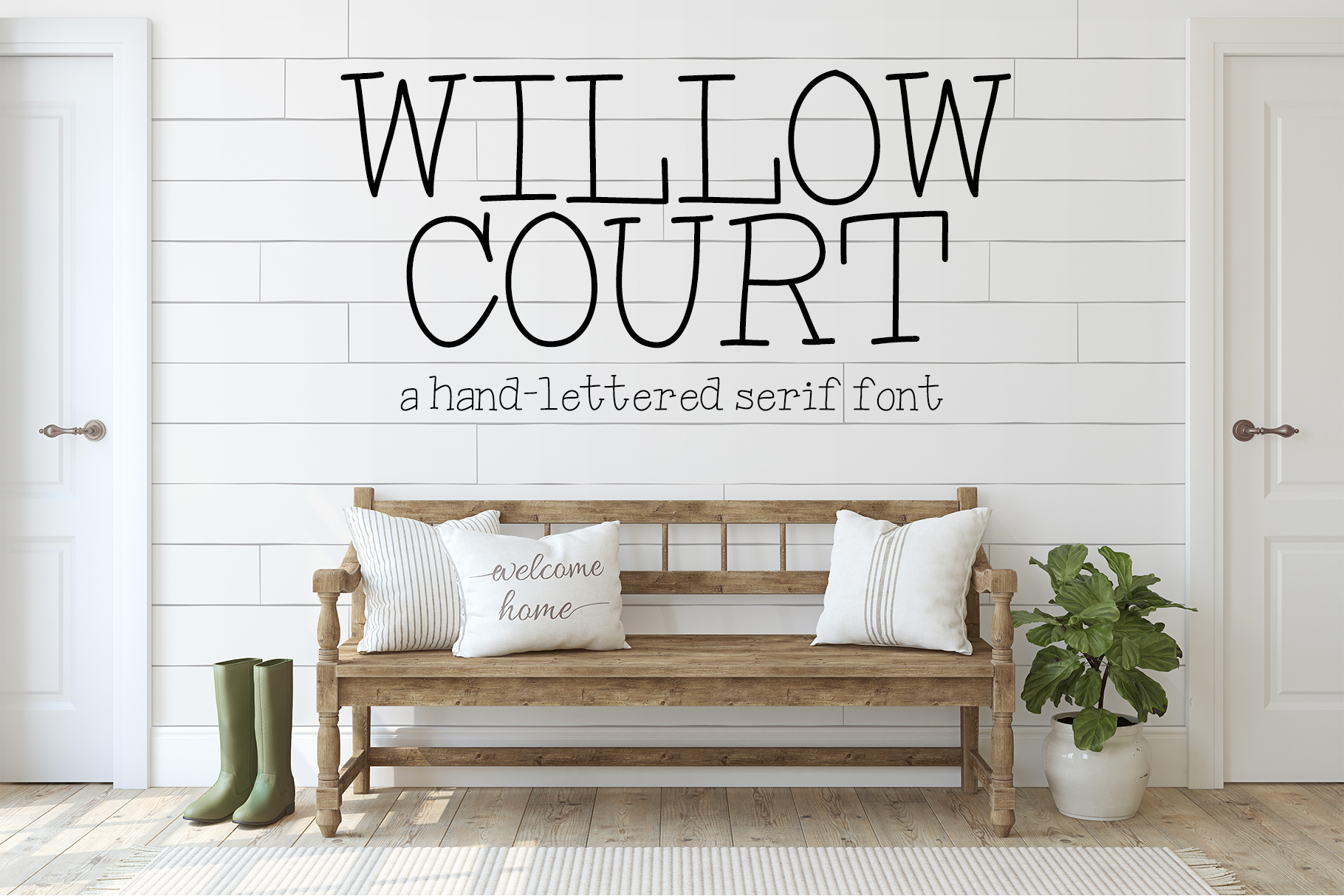
Willow Court - Handwritten Font
Willow Court is a hand-lettered serif font designed by Kathryn Hill of Nap Time Alternative.
This is a fun and playful font that will look great on a variety of projects from scrapbooking, to crafts, to stamping, as well as ads and invitations!